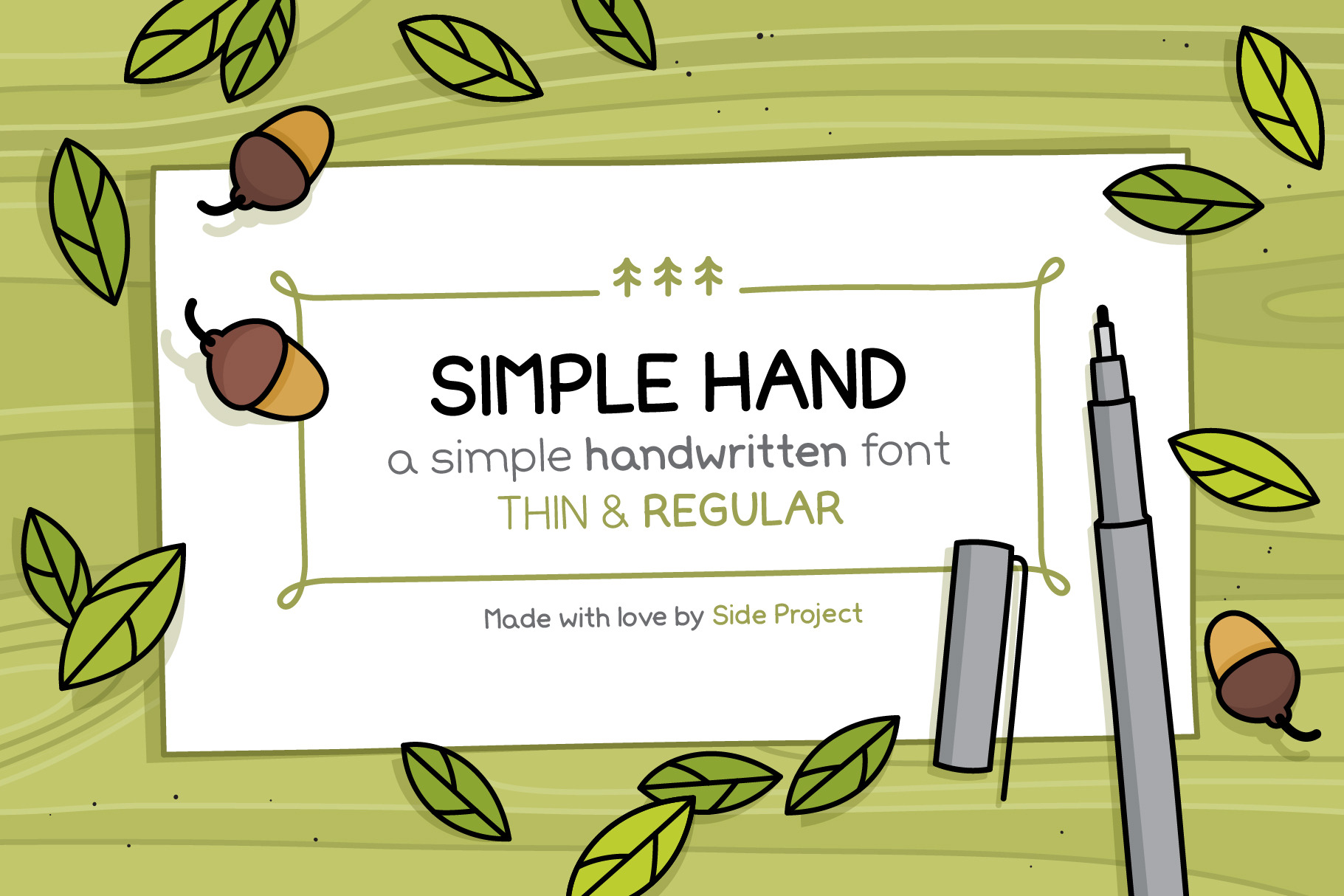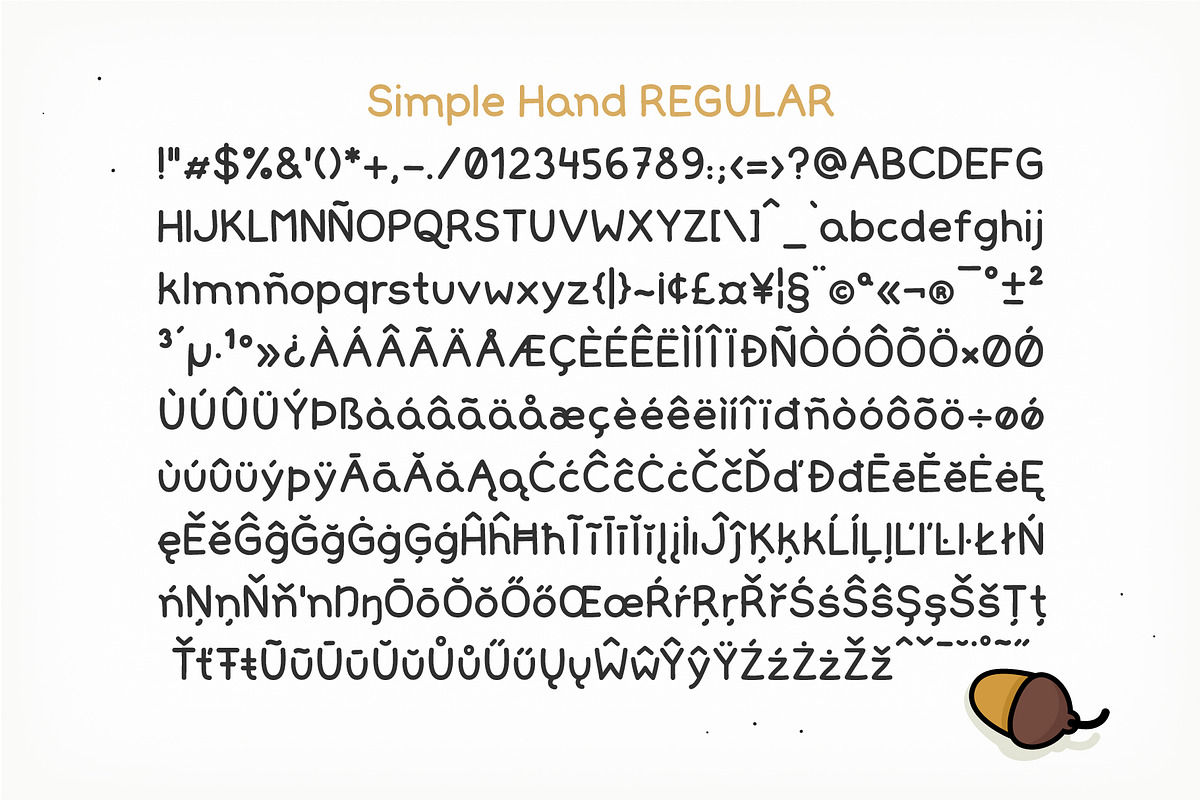
Simple Hand Handwritten Font
Introducing Simple Hand, a delightful sans serif handwritten font that combines readability with a playful touch!
With over 300 glyphs (which include: uppercase and lowercase letters, numbers, symbols and accented characters) this font supports multiple languages: Afrikaans, Basque, Breton, Catalan, Croatian, Czech, Danish, Dutch, English, Estonian, Finnish, French, Gaelic, German, Hungarian, Icelandic, Indonesian, Irish, Italian, Latvian, Lithuanian, Norwegian, Polish, Portuguese, Romanian, Sami, Serbian (Latin), Slovak, Slovenian, Spanish, Swahili, Swedish and Turkish.
Styles included:
Simple Hand Thin.
Simple Hand Regular.